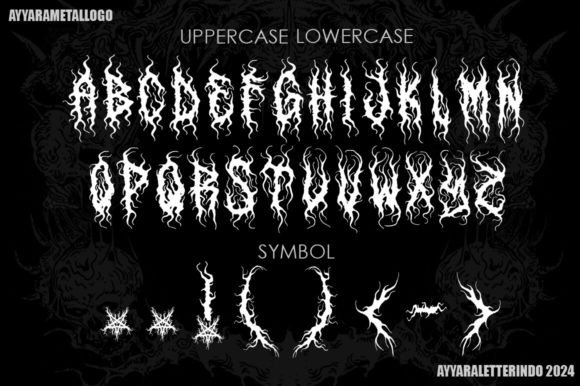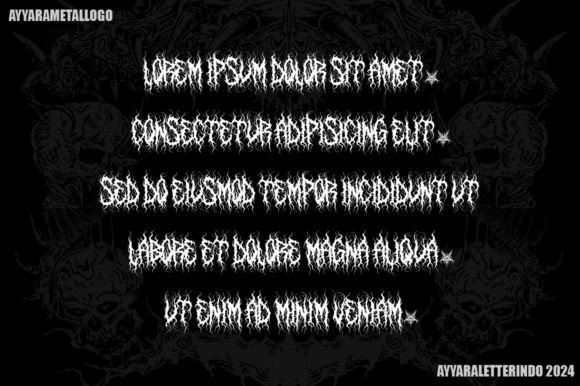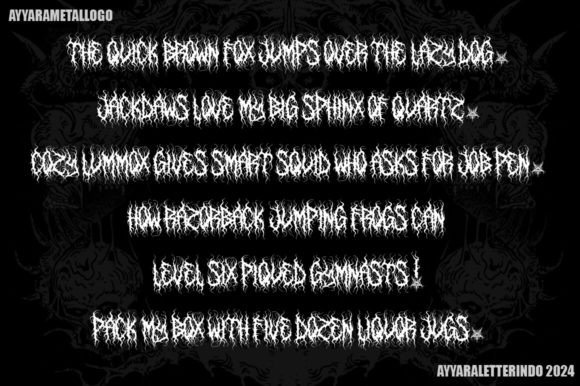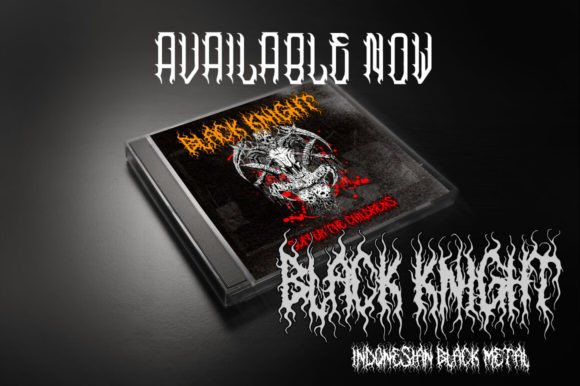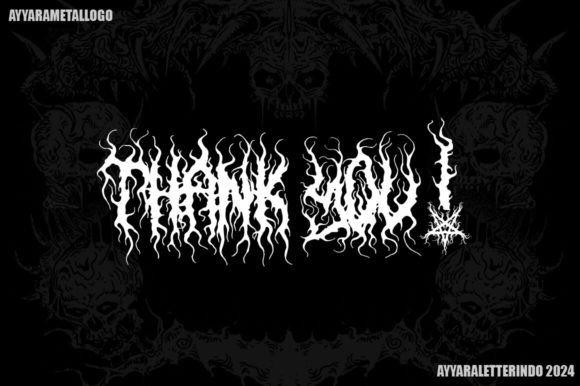
Unleash the Power of Metal with Black Knight Font
Are you a metalhead looking for the perfect font to represent your band’s name or logo? Or perhaps a designer seeking a unique and bold font to add to your collection? Look no further than the Black Knight Font, a stunning metal font that’s perfect for logos, branding, and metal band names.
What is Black Knight Font?
Black Knight Font is a metal font designed to evoke the dark, edgy, and powerful spirit of metal music. With its bold, rugged, and ornate design, this font is sure to make a statement. Its blackletter style, inspired by traditional Gothic typography, gives it a distinctive and menacing look that’s perfect for metal bands, heavy metal logos, and dark-themed designs.
Features of Black Knight Font
• Unique Blackletter Design: Black Knight Font boasts a distinctive blackletter design that’s perfect for creating bold and eye-catching logos, band names, and branding materials.
• Metal-Inspired: This font is specifically designed with metal music in mind, making it perfect for metal band logos, album covers, and merchandise.
• Versatile: Black Knight Font can be used for a variety of design projects, from logos and branding to posters, flyers, and social media graphics.
• Easily Customizable: With its wide range of characters and symbols, you can easily customize the font to fit your design needs.
• Combine with Metal Ornaments: Take your design to the next level by combining Black Knight Font with metal ornaments, such as skulls, crosses, or other metal-inspired graphics.
• Experiment with Colors: Don’t be afraid to experiment with different colors and textures to give your design a unique look.
• Use for Logos and Branding: Black Knight Font is perfect for creating bold and memorable logos and branding materials for metal bands, heavy metal-inspired businesses, or dark-themed projects.
Perfect for Metal Music Enthusiasts
Black Knight Font is a must-have for metal music enthusiasts who want to create bold and eye-catching designs that reflect their love for the genre. Whether you’re a musician, designer, or simply a fan, this font is sure to inspire your creativity.
Examples of Black Knight Font in Action
Here are a few examples of how Black Knight Font can be used:
• Metal Band Logos: Use Black Knight Font to create bold and menacing logos for your metal band.
• Heavy Metal Album Covers: Design eye-catching album covers that reflect the dark and edgy spirit of metal music.
• Merchandise Design: Create stunning merchandise designs, such as t-shirts, posters, and stickers, that showcase your love for metal music.